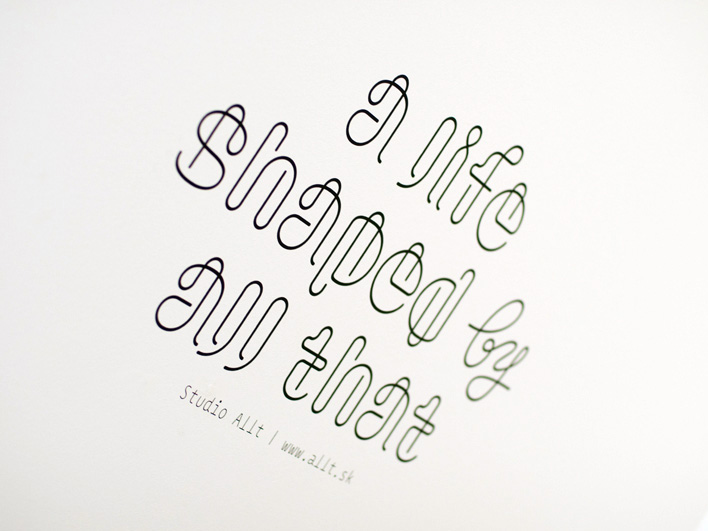
- Clip
Stylistic Set 1 RegulargraugrauAlternatives without the overlapping loops
Stylistic Set 2 LightglacierglacierSingle-storey a, g
Discretionary Ligatures Lightdockdock
Single-stroke decorative display typeface inspired by the shape of a paperclip.
Clip is a conceptual, experimental modern serif typeface with rounded terminals primarily intended for display use consisting of 3 styles, with natural width and large x-height.
Clip supports Basic Latin and Extended Latin and covers over 100 languages. With total of 749 glyphs, it includes the default set of proportional oldstyle figures along with proportional lining figures for advanced numerical setting. Additional features like stylistic set 1–4, standard ligatures, discretionary ligatures, swashes, and ordinals allow for further customization and versatility.
Although the Clip typeface is inspired by a paperclip, it borrows its construction, proportions and contrast from traditional serif text typefaces. It also has one unique characteristic — every glyph is drawn in only a single uninterrupted stroke.